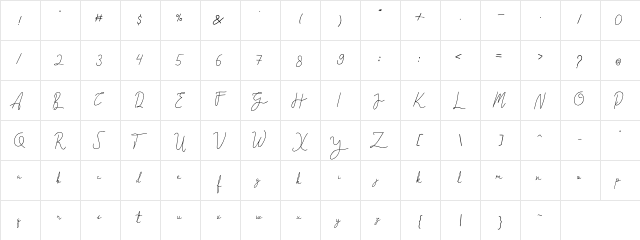
cantilena Regular
| Foundry | Bang Toyib |
| Designer | bang Toyib |
Design Context for cantilena Typeface
cantilena takes a measured approach to typography — its balanced proportions and neutral character make it a reliable workhorse for both digital and print work.